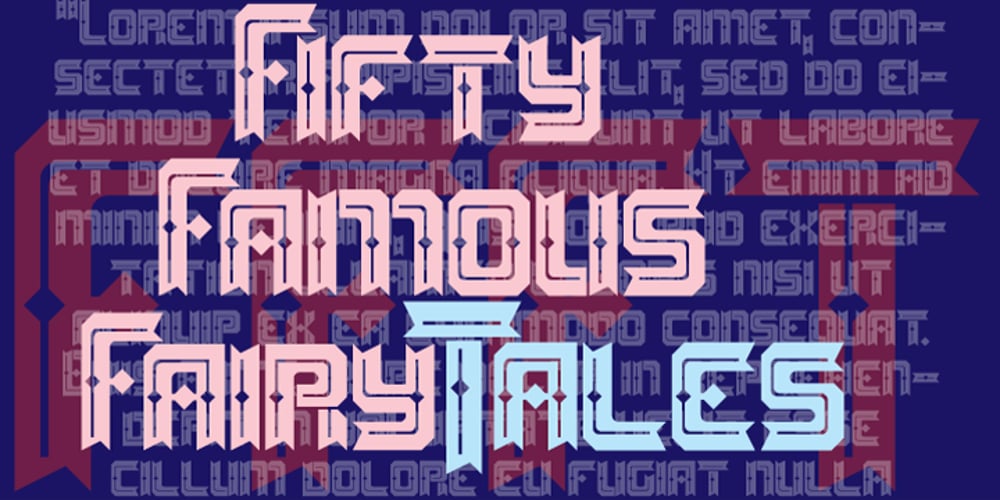
Fifty Famous Fairy Tales
Fifty Famous Fairy Tales font
Fifty Famous Fairy Tales Font Family was designed by Wilson Thomas and published by Funk King. Fifty Famous Fairy Tales contains 1 styles and family package options. Fifty Famous Fairy Tales was inspired by lettering on the cover of a children’s book of the same name published by Whitman Publishers back in the 50s or 60s.